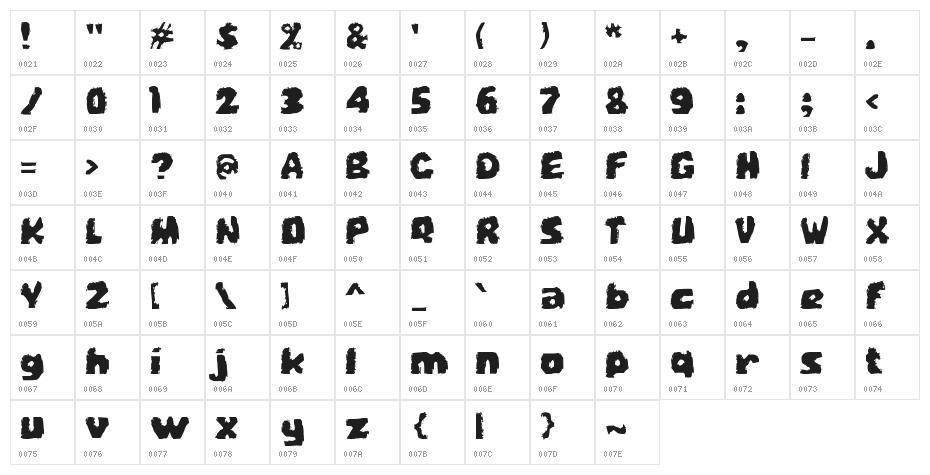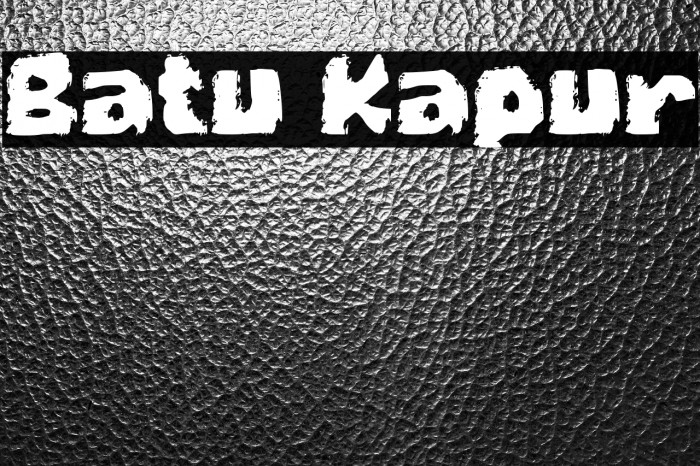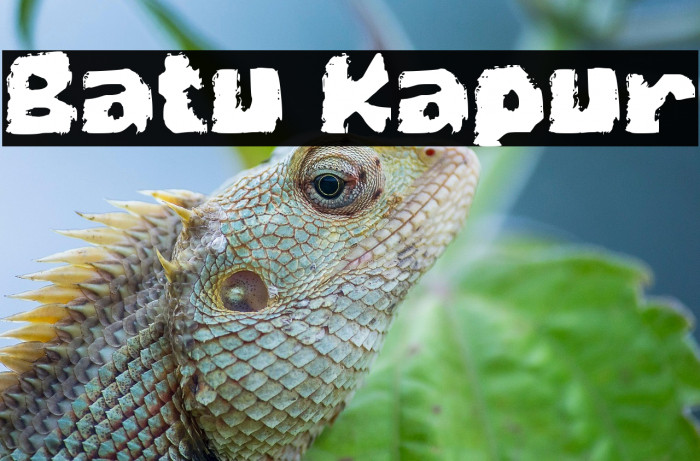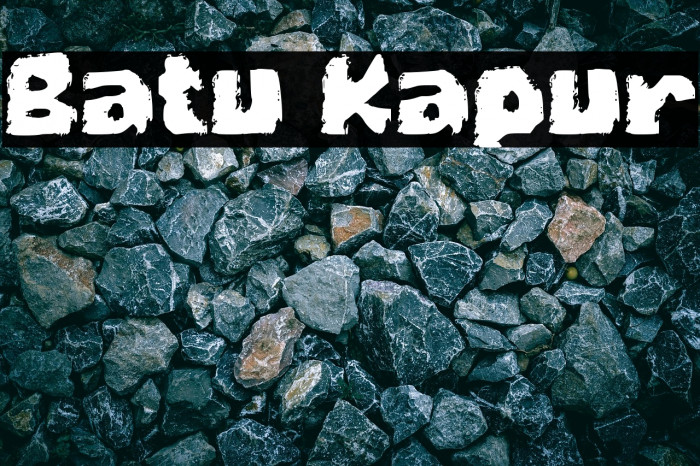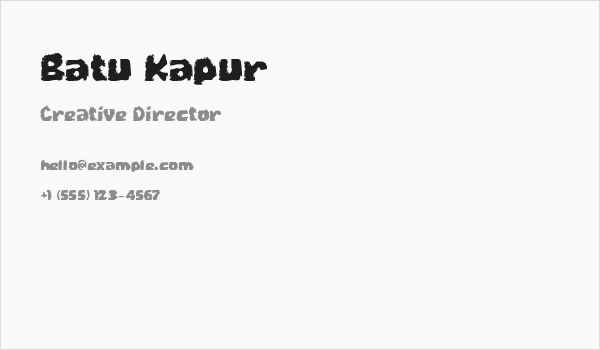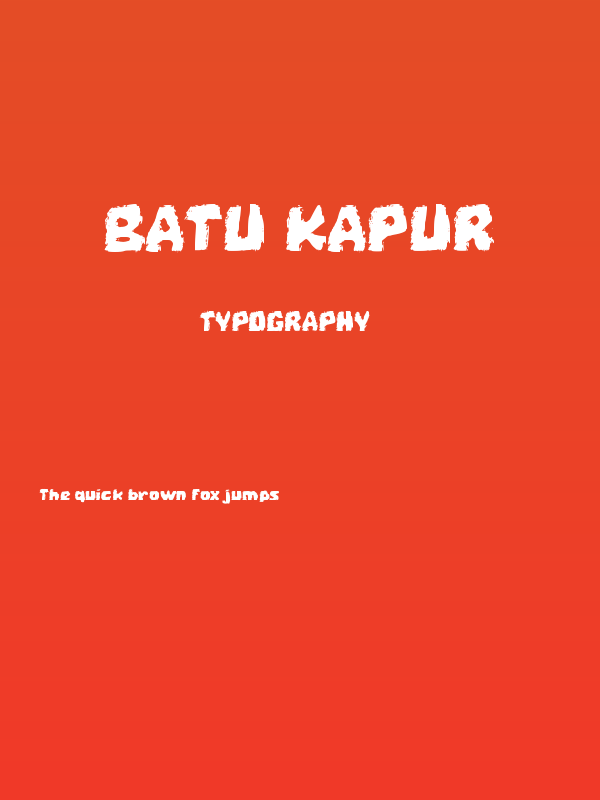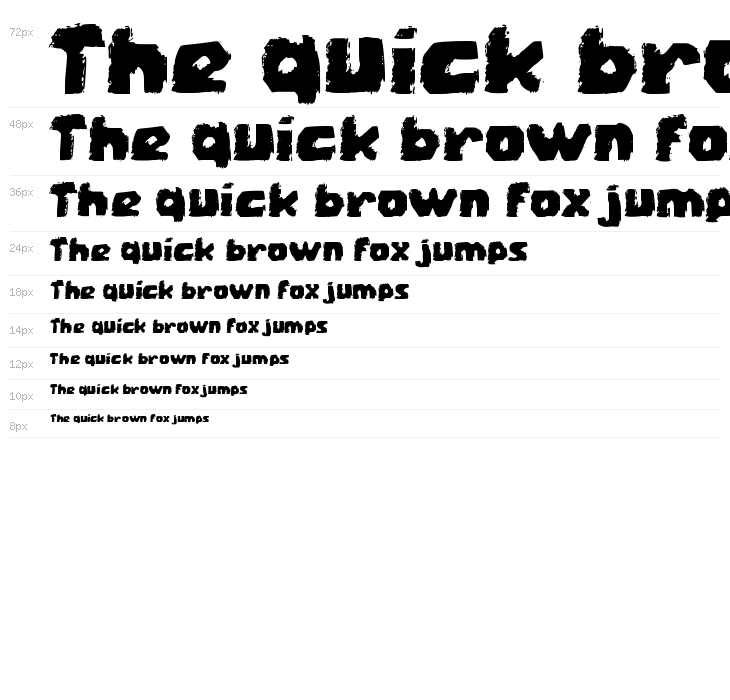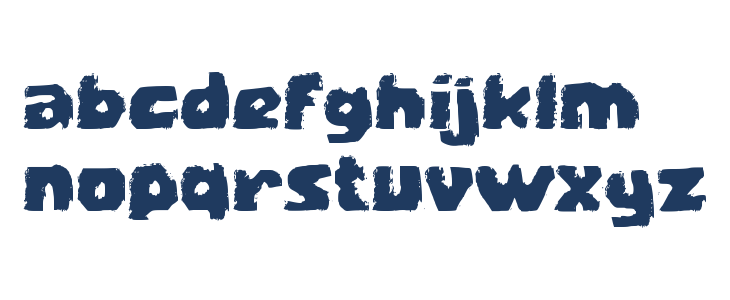
Batu Kapur Font
Batu Kapur Description
This font exhibits a rugged, textured appearance reminiscent of chalk or rough brush strokes. The characters are bold and impactful, with uneven edges that give a hand-crafted, organic feel. The uppercase and lowercase letters maintain a consistent style, with a slightly irregular baseline that enhances its informal and artistic nature. Numbers and special characters follow the same textured pattern, ensuring uniformity across all glyphs. The overall impression is one of creativity and dynamism, making it suitable for projects that require a bold, artistic touch.
| Overall Style | Artistic, Creative |
| Use Case | Headlines, Posters, Artistic Branding |
| Proposed Projects | Ideal for posters, album covers, artistic branding, and any project needing a creative, bold statement. |